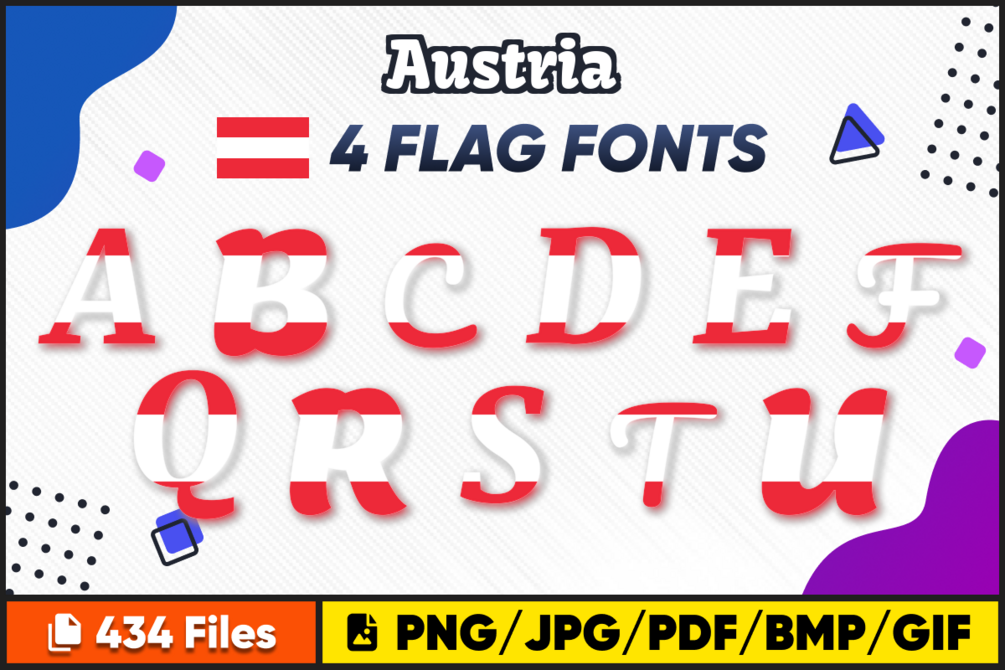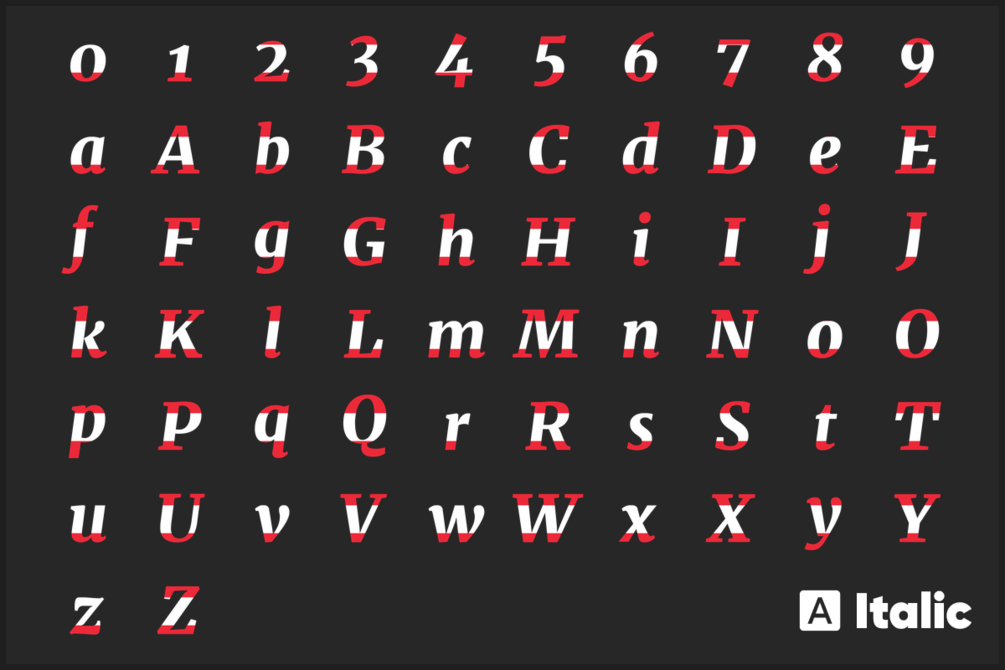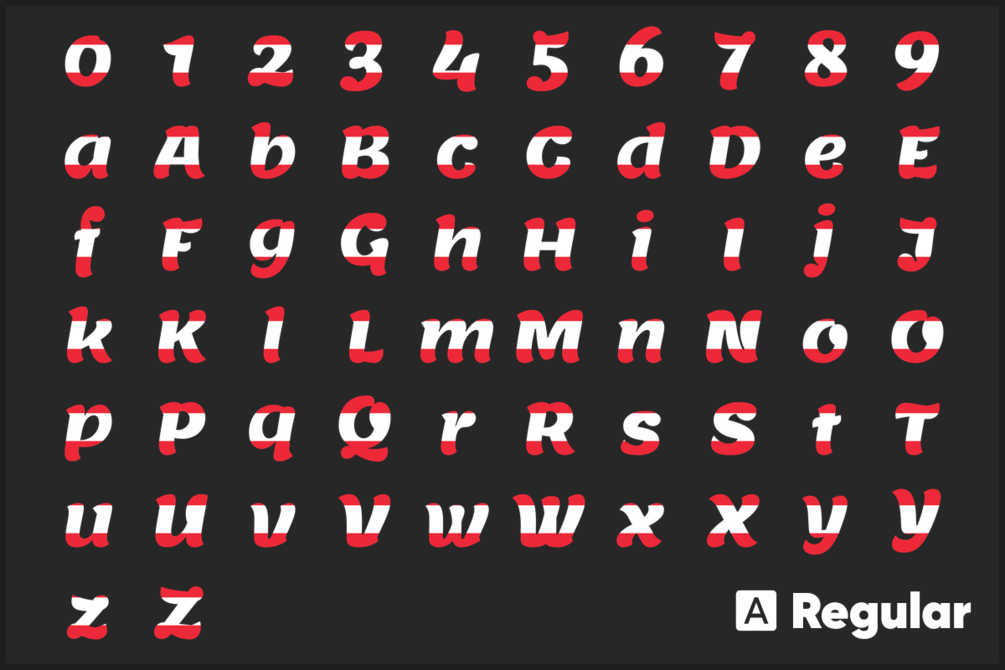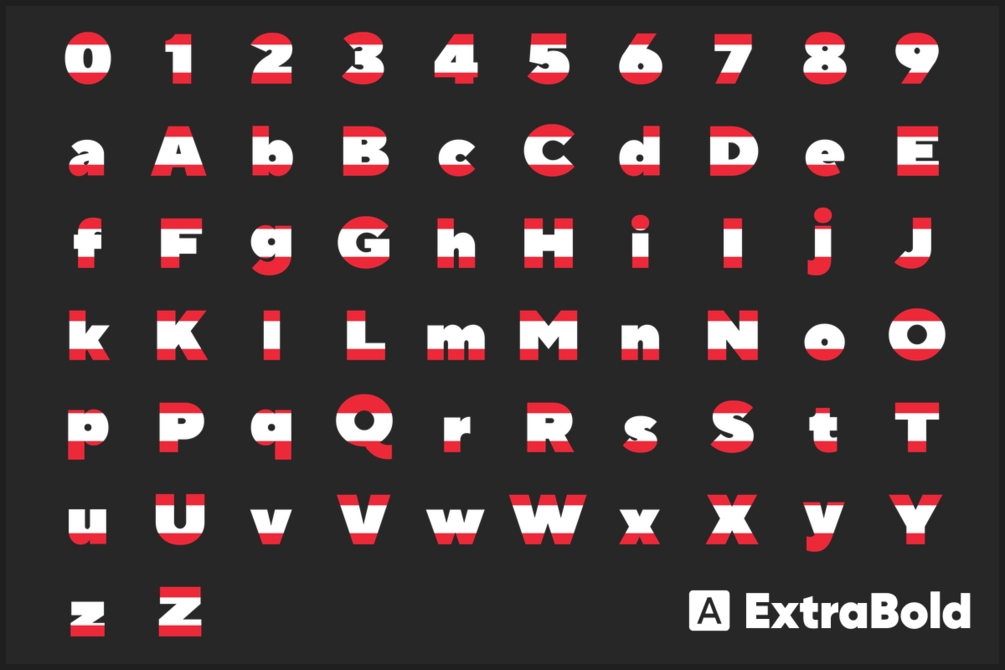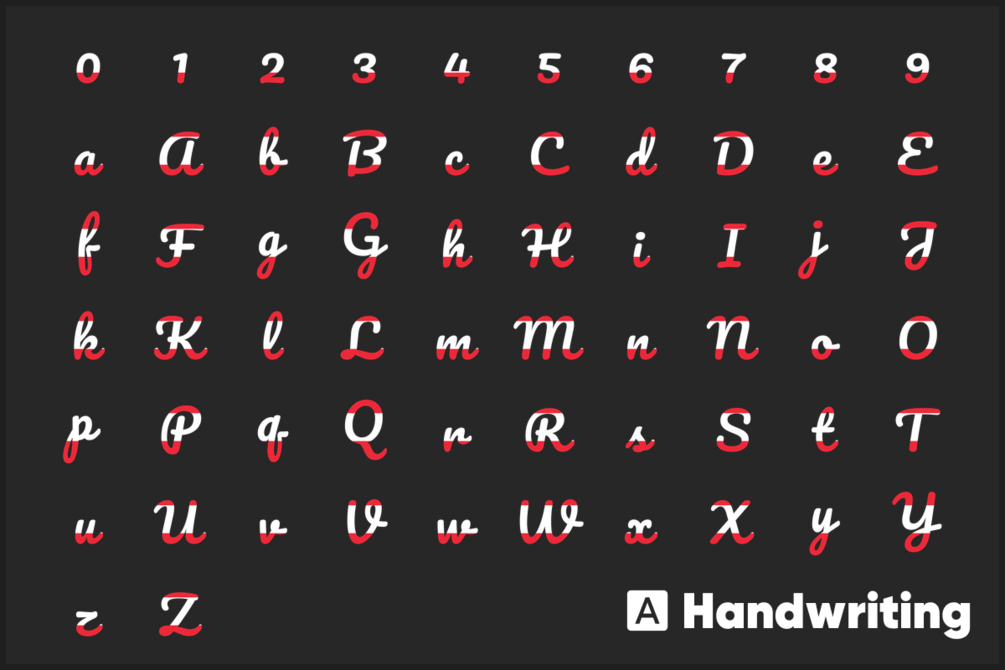
Looking for a unique way to express your love for your country? Check out Austria Font free download Flag Font, Alphabet. Our high-quality country font images are perfect for all your crafting needs, including t-shirt designs, scrapbooking, photo albums, card making, mug designs, prints, and more.